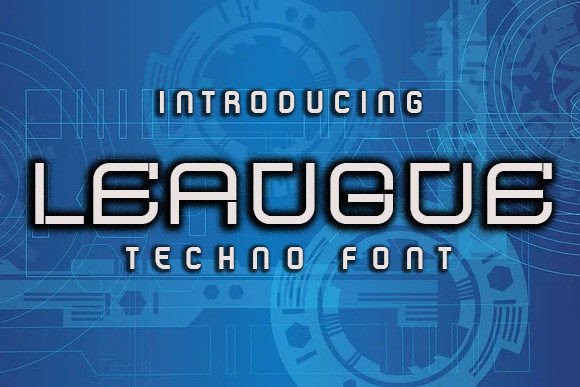
Embark on a journey into the realm of digital artistry with the League Font, a visionary creation that transcends the boundaries of ordinary typography. As a display font family, League captivates with its futuristic and dynamic design, invoking a sense of innovation and technological prowess.
Picture yourself crafting a Twitch banner that radiates with an otherworldly aura, drawing viewers into the captivating world you've created. The bold and angular characters of League, inspired by the vast expanse of science-fiction and technology, command attention, leaving an indelible mark on the minds of your audience.
League is your gateway to crafting visual masterpieces that defy the ordinary. Whether you're designing video games, movies, or websites, this font ignites a spark of creativity, propelling your imagination to new heights. Its sleek lines and cutting-edge aesthetic create a visual symphony that resonates with the modern, tech-savvy audience.
With League as your creative ally, you'll embark on a journey of self-expression, transforming your digital creations into captivating works of art. Its bold presence demands attention, leaving an imprint that lingers in the viewer's memory long after they've closed their browser.
Prepare to be mesmerized as your Twitch banner, adorned with the intricate details of League, becomes an eye-catching beacon, drawing viewers into your captivating realm. Experience the transformative power of typography as you witness the fusion of art and technology, unfolding before your eyes.